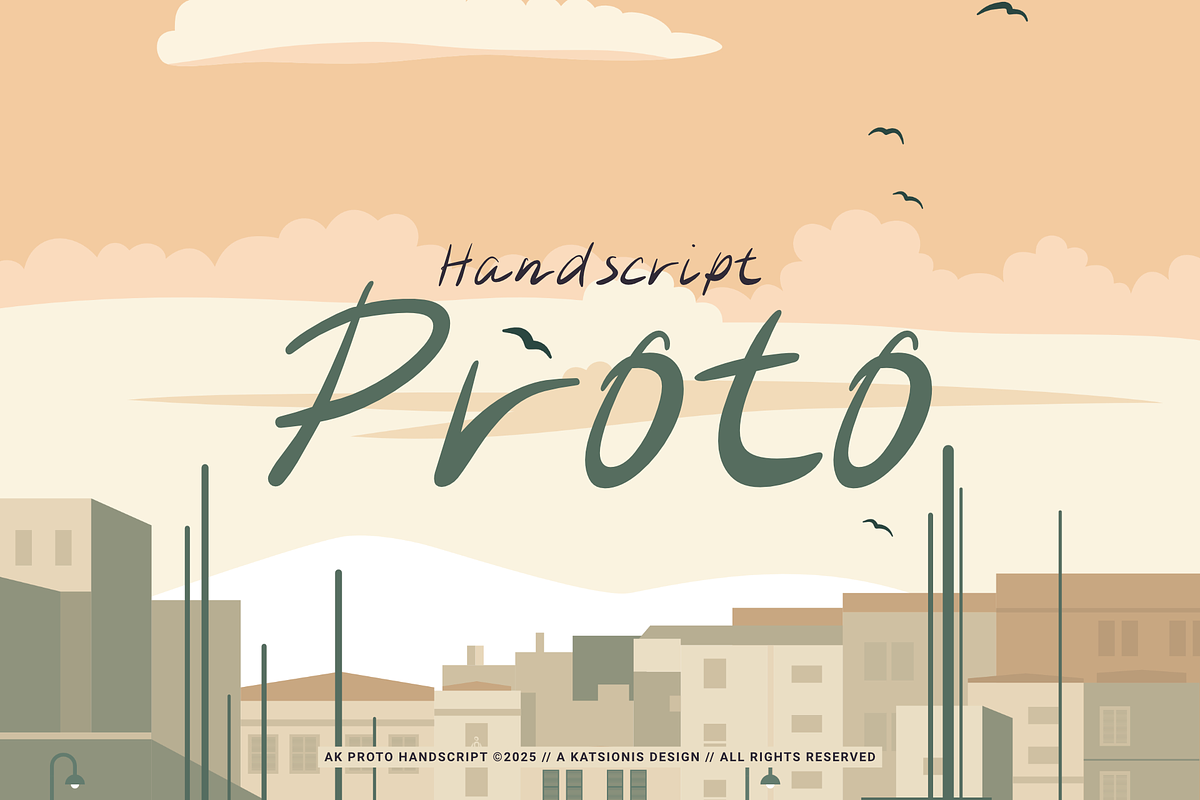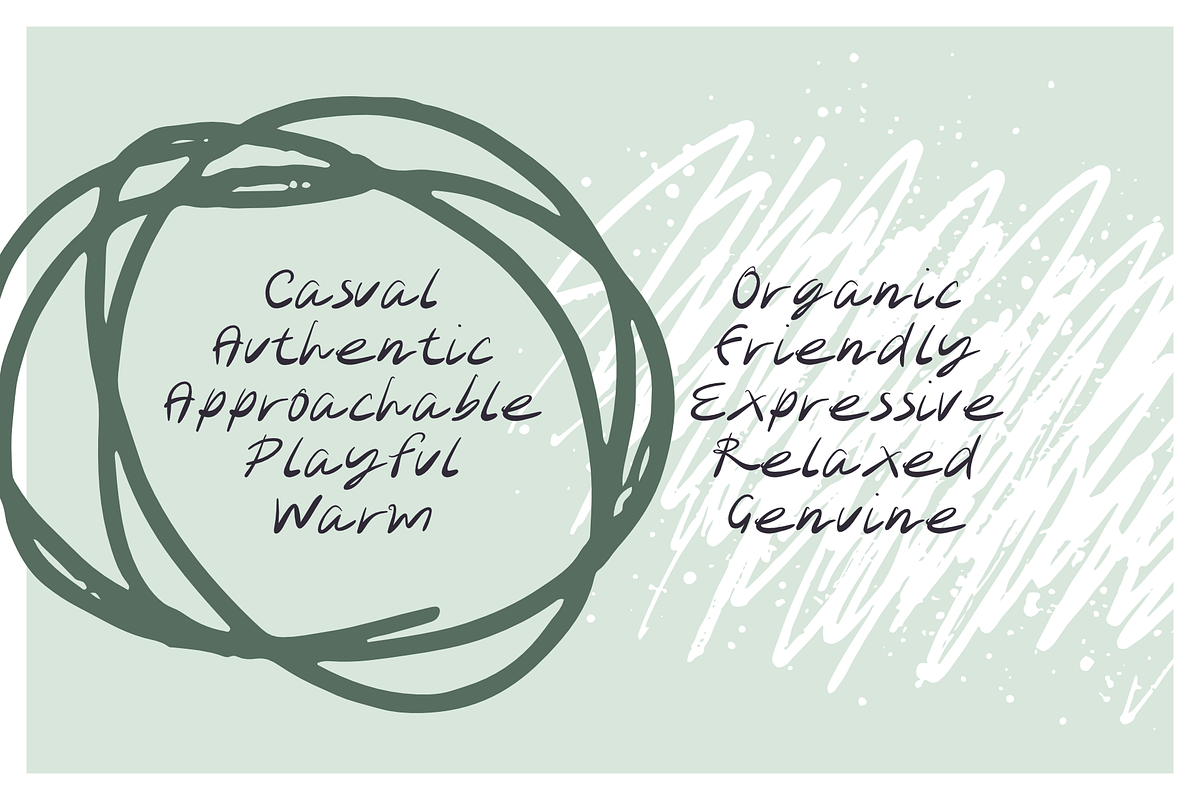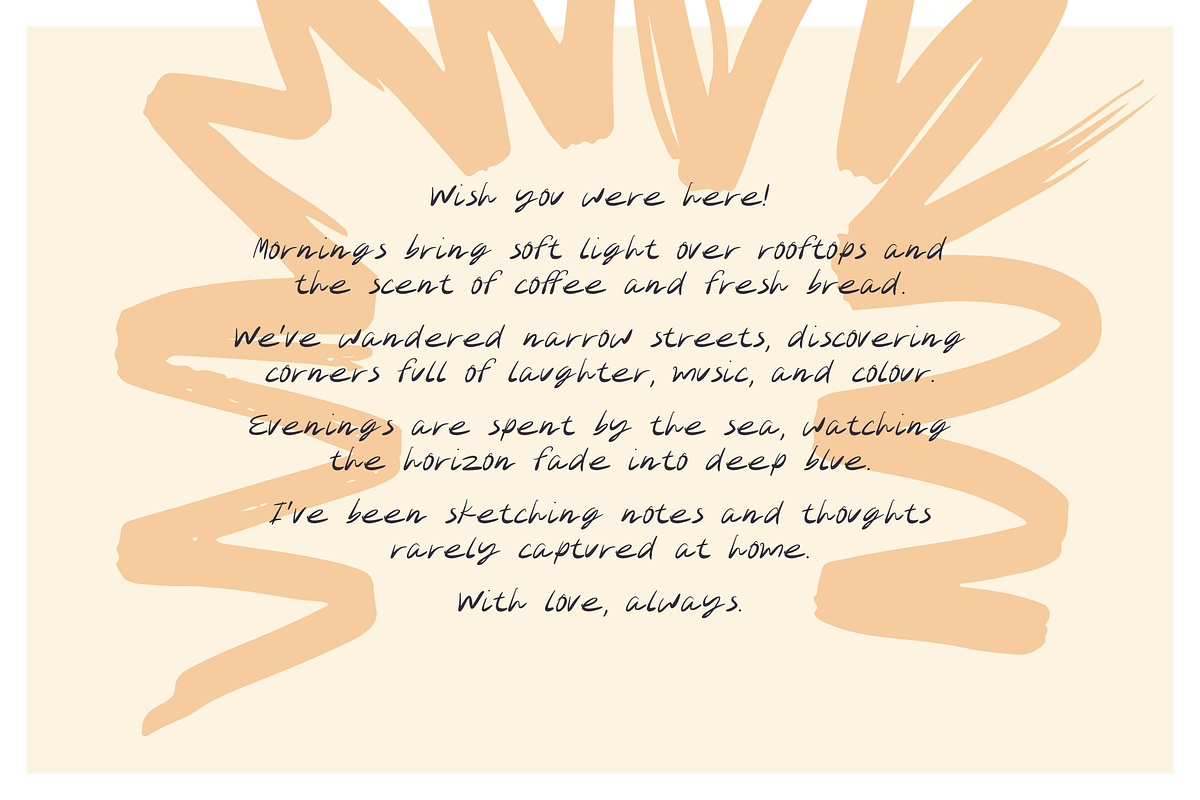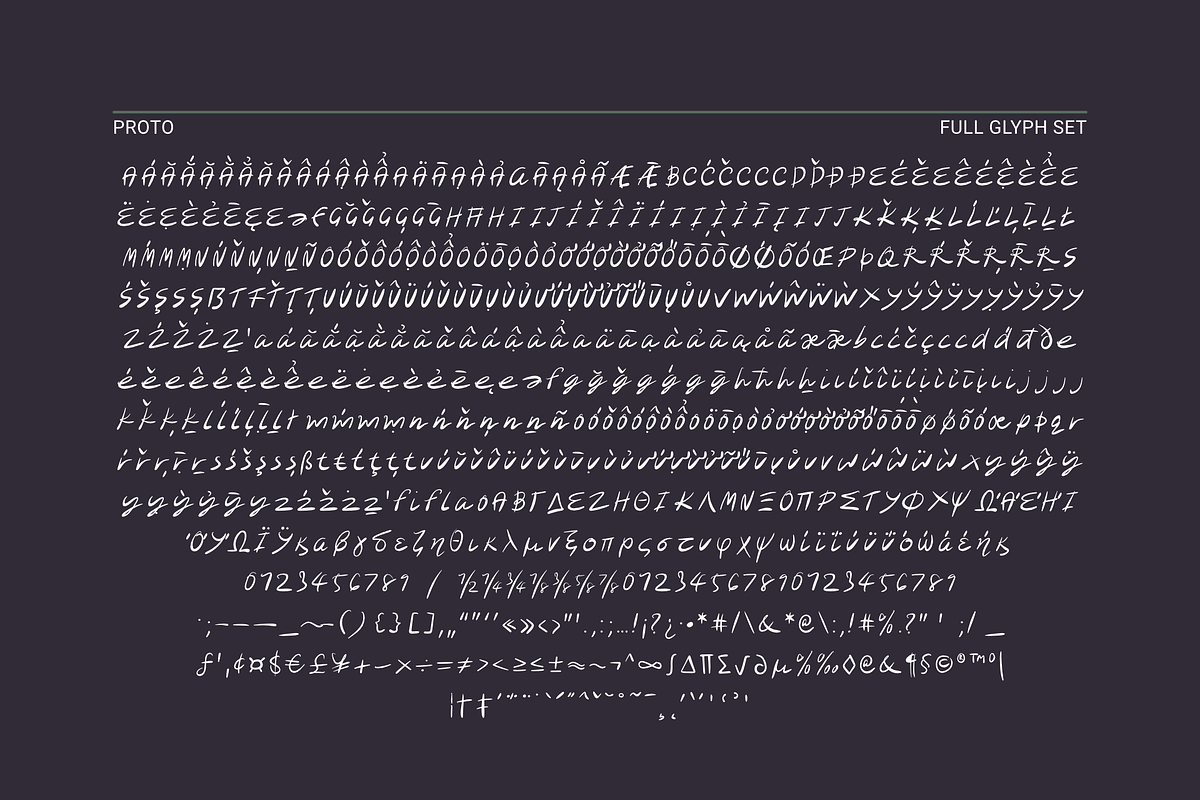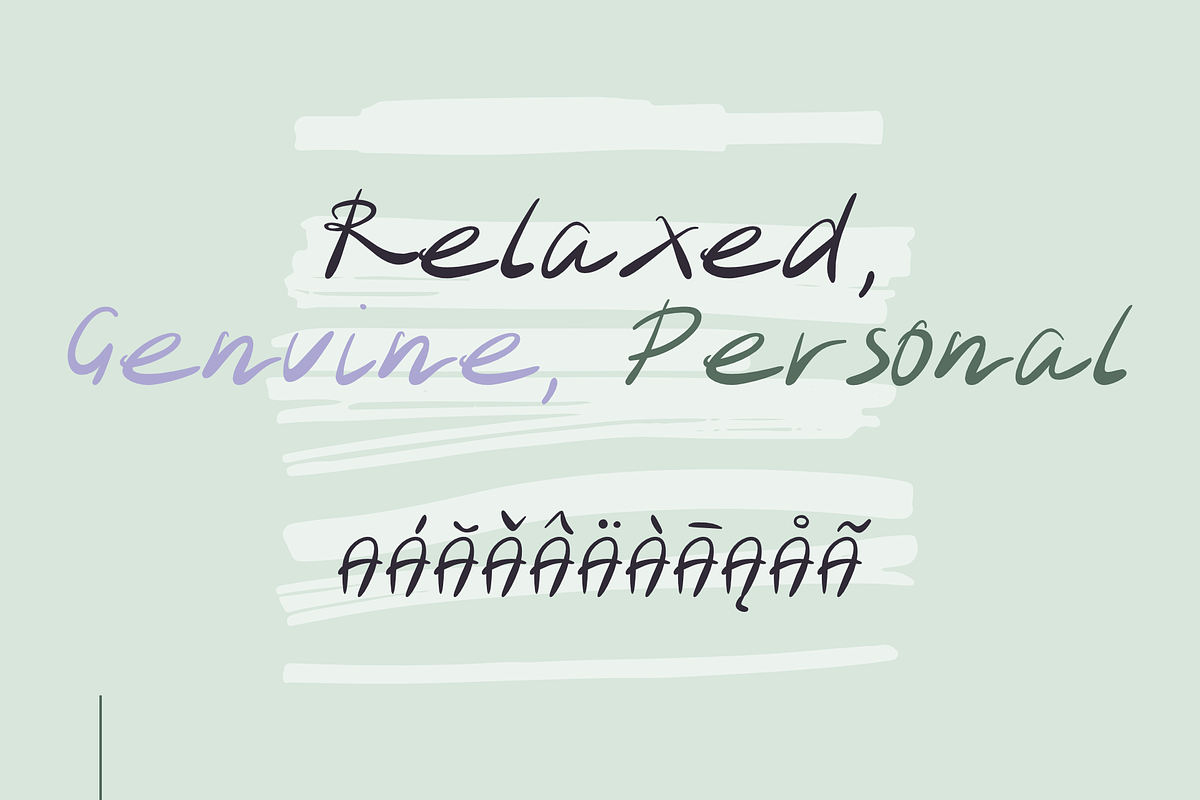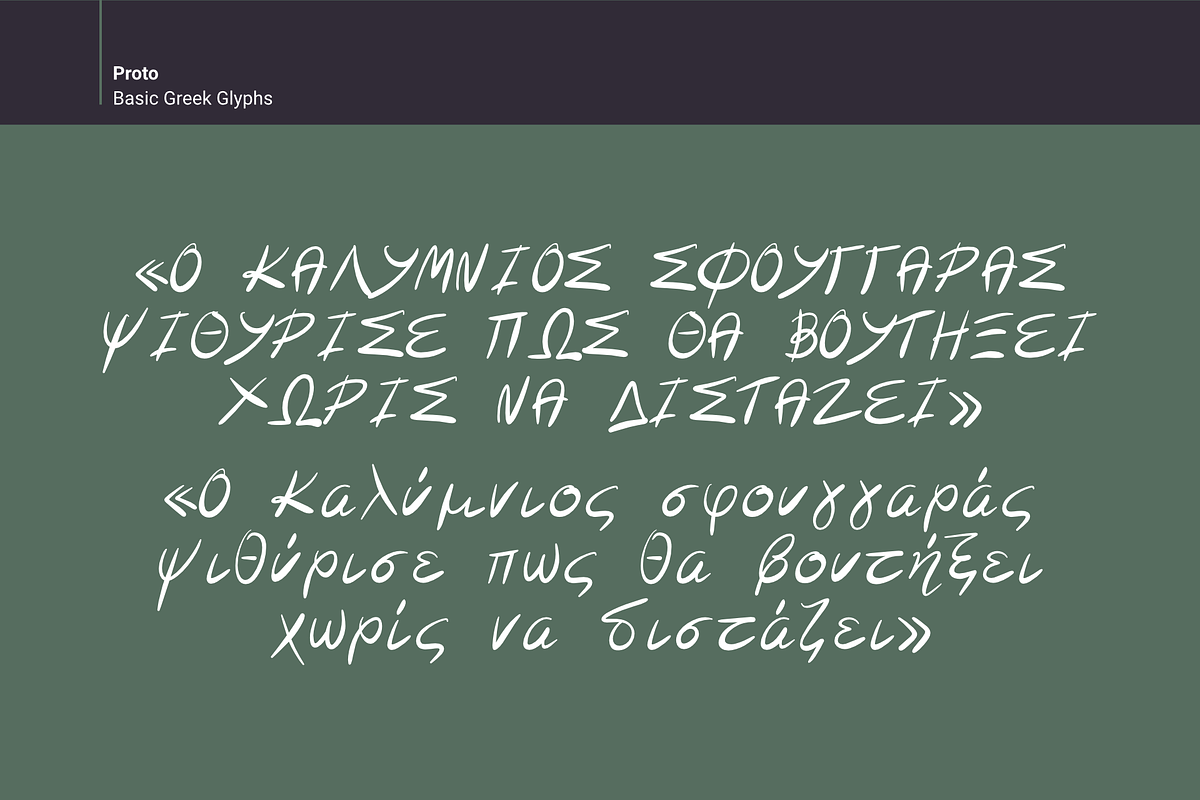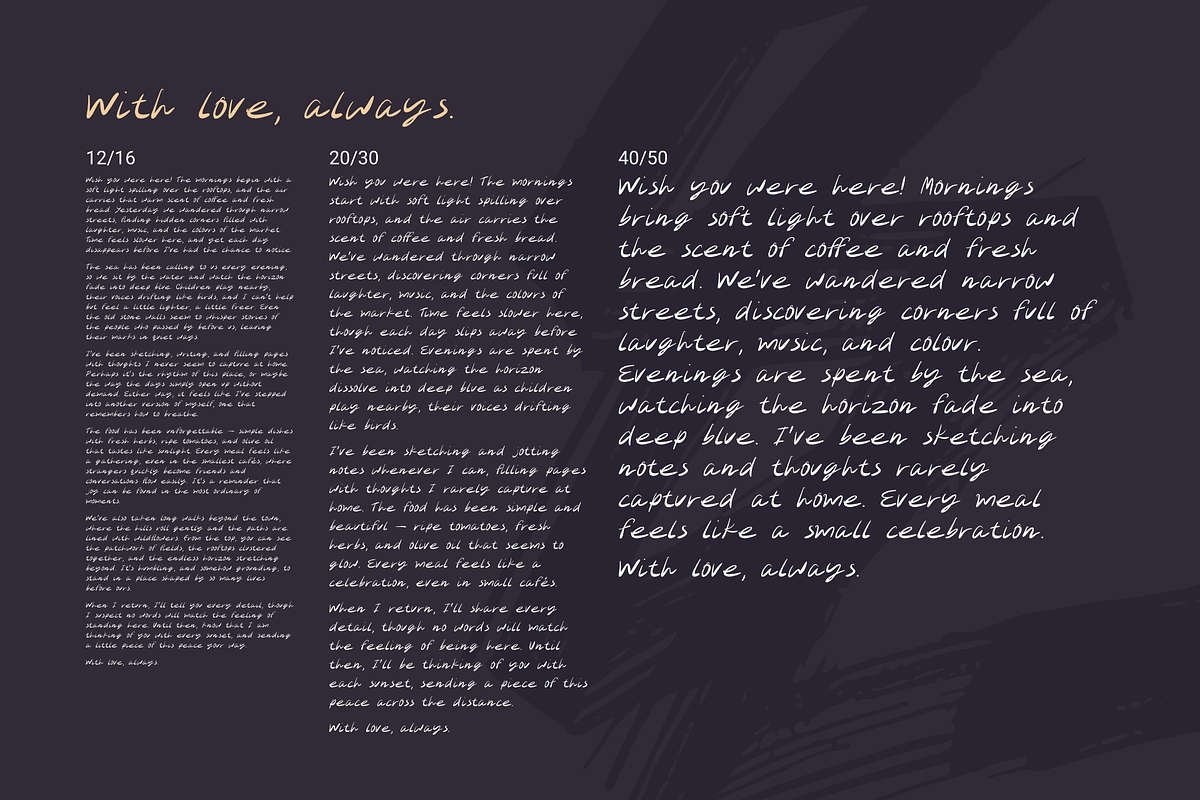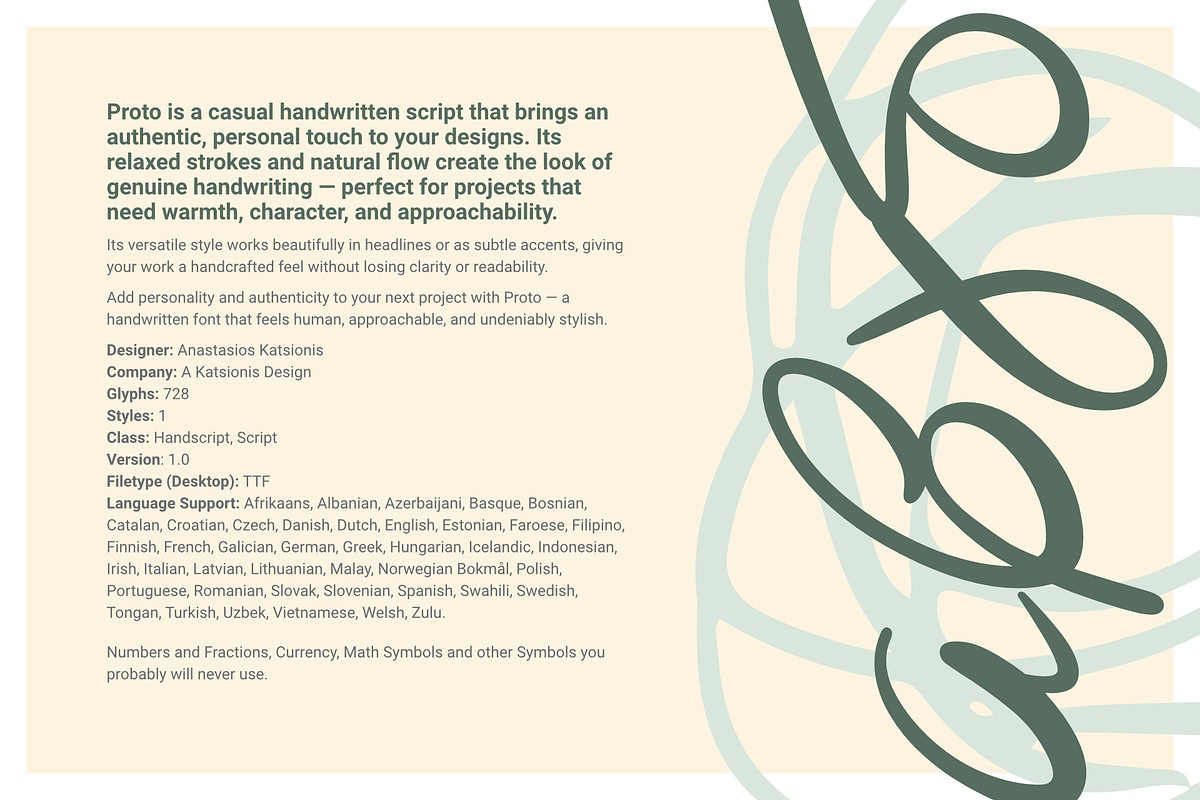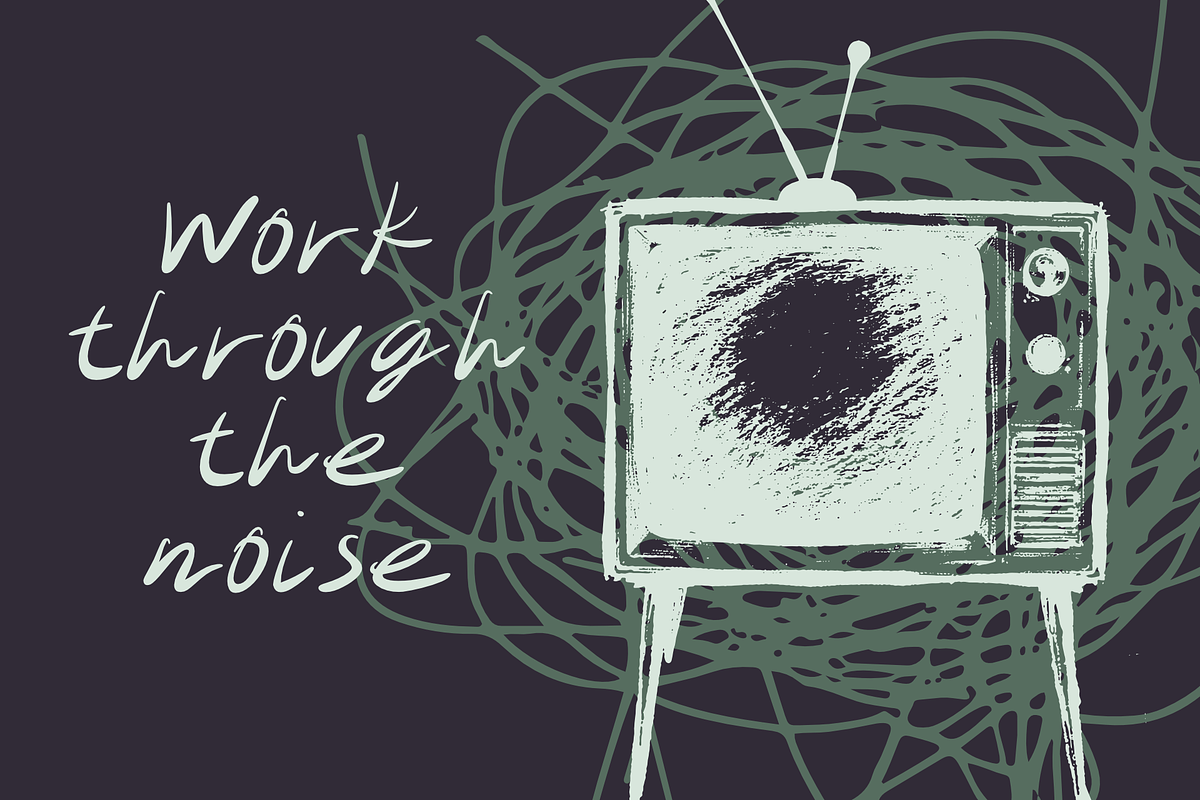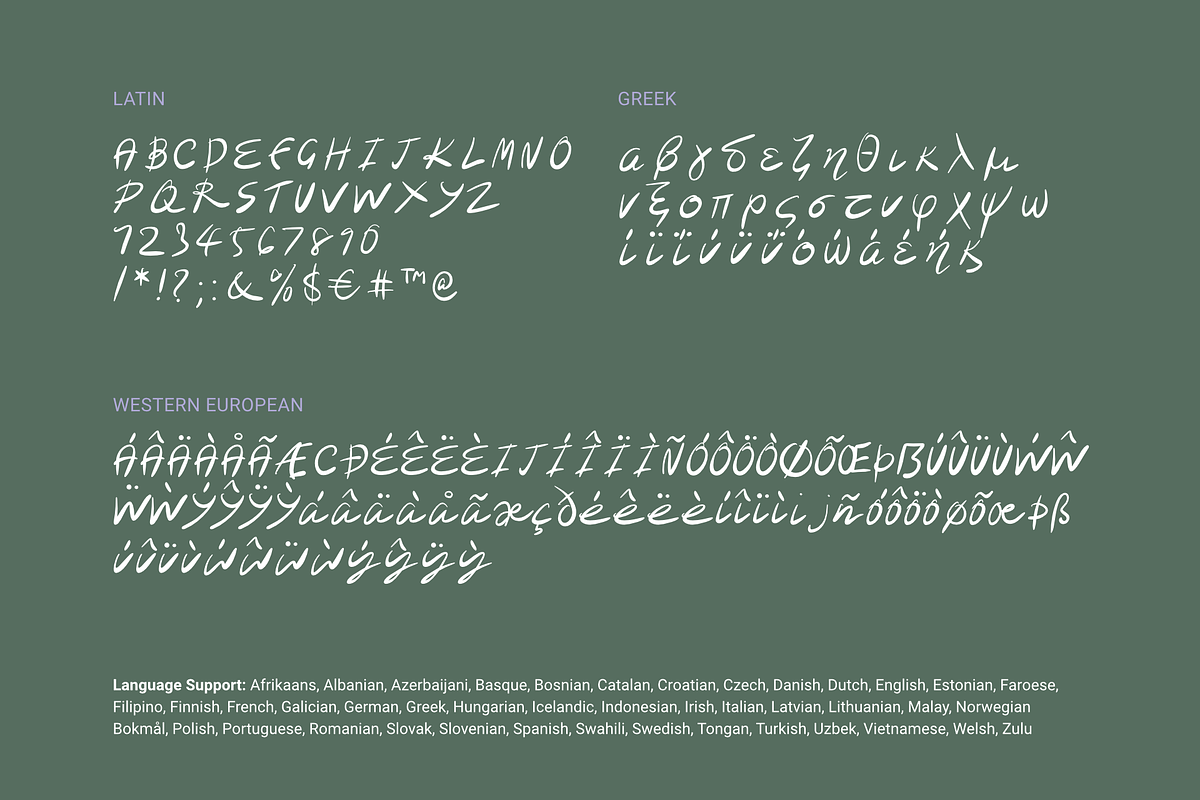
Proto Handscript
Proto is a casual handwritten script that brings an authentic, personal touch to your designs. Its relaxed strokes and natural flow create the look of genuine handwriting — perfect for projects that need warmth, character, and approachability.
Its versatile style works beautifully in headlines or as subtle accents, giving your work a handcrafted feel without losing clarity or readability.
Add personality and authenticity to your next project with Proto — a handwritten font that feels human, approachable, and undeniably stylish.
Designer: Anastasios Katsionis
Glyphs: 728
Styles: 1
Class: Handscript
Numbers and Fractions, Currency, Math Symbols and other Symbols you probably will never use.